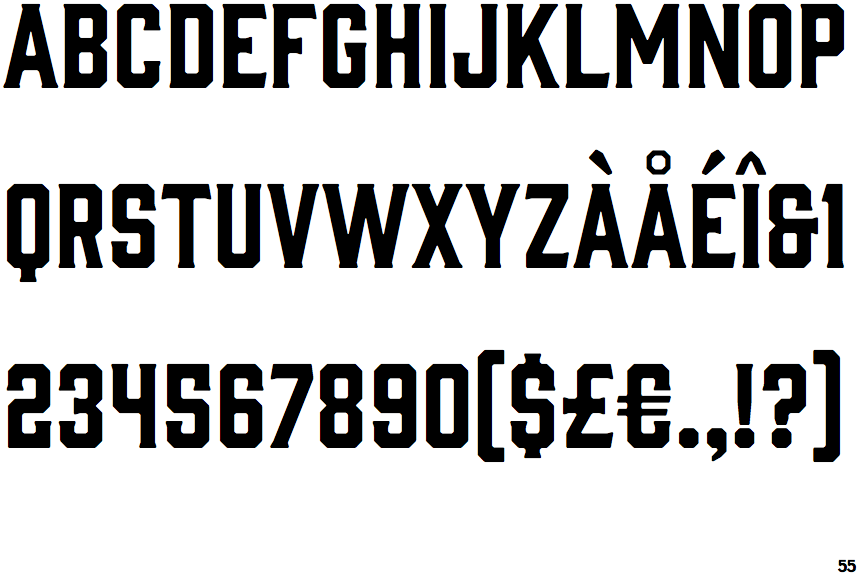
Gin Round Font . Regular, oblique, lines, lines oblique, rough, rough oblique, round, and round oblique to experiment with different typography design cocktails. Thus you are provided with: A typeface with 2 styles, available from adobe fonts for sync and web use. Explore gin designed by mattox shuler at adobe fonts. This vintage display typeface was inspired by the likes of old serifs and classic bottles of whiskey and gin. Gin comes in four different styles as seen below with oblique. Like a brother to bourbon, gin display font is distilled from similar letterforms, but condensed less. Gin font family is a vintage display typeface inspired by classic whiskey and gin bottles, designed for strong branding. sites using the typeface gin with personal recommendations for similar web fonts, suggested font pairings and the closest free.
Gin comes in four different styles as seen below with oblique. Gin font family is a vintage display typeface inspired by classic whiskey and gin bottles, designed for strong branding. A typeface with 2 styles, available from adobe fonts for sync and web use. Regular, oblique, lines, lines oblique, rough, rough oblique, round, and round oblique to experiment with different typography design cocktails. Thus you are provided with: This vintage display typeface was inspired by the likes of old serifs and classic bottles of whiskey and gin. Explore gin designed by mattox shuler at adobe fonts. Like a brother to bourbon, gin display font is distilled from similar letterforms, but condensed less. sites using the typeface gin with personal recommendations for similar web fonts, suggested font pairings and the closest free.
Gin Round Font A typeface with 2 styles, available from adobe fonts for sync and web use. sites using the typeface gin with personal recommendations for similar web fonts, suggested font pairings and the closest free. Explore gin designed by mattox shuler at adobe fonts. Like a brother to bourbon, gin display font is distilled from similar letterforms, but condensed less. A typeface with 2 styles, available from adobe fonts for sync and web use. Regular, oblique, lines, lines oblique, rough, rough oblique, round, and round oblique to experiment with different typography design cocktails. Thus you are provided with: Gin comes in four different styles as seen below with oblique. Gin font family is a vintage display typeface inspired by classic whiskey and gin bottles, designed for strong branding. This vintage display typeface was inspired by the likes of old serifs and classic bottles of whiskey and gin.
Gin free Font What Font Is Gin Round Font Gin comes in four different styles as seen below with oblique. Like a brother to bourbon, gin display font is distilled from similar letterforms, but condensed less. sites using the typeface gin with personal recommendations for similar web fonts, suggested font pairings and the closest free. Regular, oblique, lines, lines oblique, rough, rough oblique, round, and round oblique to experiment. Gin Round Font.
Identifont Gin Round Font sites using the typeface gin with personal recommendations for similar web fonts, suggested font pairings and the closest free. Gin comes in four different styles as seen below with oblique. Like a brother to bourbon, gin display font is distilled from similar letterforms, but condensed less. Explore gin designed by mattox shuler at adobe fonts. A typeface with 2 styles,. Gin Round Font.
Handcrafted 'Vintage Gin' font with casks and decorations, dusty Gin Round Font A typeface with 2 styles, available from adobe fonts for sync and web use. Gin font family is a vintage display typeface inspired by classic whiskey and gin bottles, designed for strong branding. Gin comes in four different styles as seen below with oblique. Thus you are provided with: Like a brother to bourbon, gin display font is distilled from. Gin Round Font.
GIN abstract technology circle setting logo design on white background Gin Round Font Gin comes in four different styles as seen below with oblique. A typeface with 2 styles, available from adobe fonts for sync and web use. sites using the typeface gin with personal recommendations for similar web fonts, suggested font pairings and the closest free. Like a brother to bourbon, gin display font is distilled from similar letterforms, but condensed less.. Gin Round Font.
Gin Fonts Fontspring Typography, Typeface, Vintage fonts Gin Round Font This vintage display typeface was inspired by the likes of old serifs and classic bottles of whiskey and gin. sites using the typeface gin with personal recommendations for similar web fonts, suggested font pairings and the closest free. Regular, oblique, lines, lines oblique, rough, rough oblique, round, and round oblique to experiment with different typography design cocktails. Thus you are. Gin Round Font.